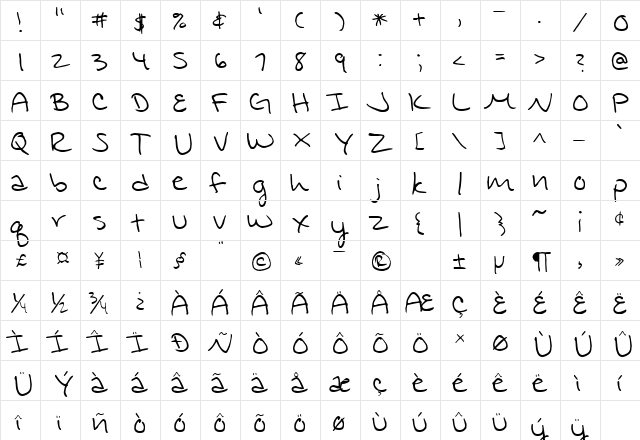
Jennifer's Hand Writing Regular
Design Context for Jennifer's Hand Writing Typeface
Jennifer's Hand Writing flows with the natural rhythm of handwritten lettering, making it ideal for designs that call for warmth and personal expression.